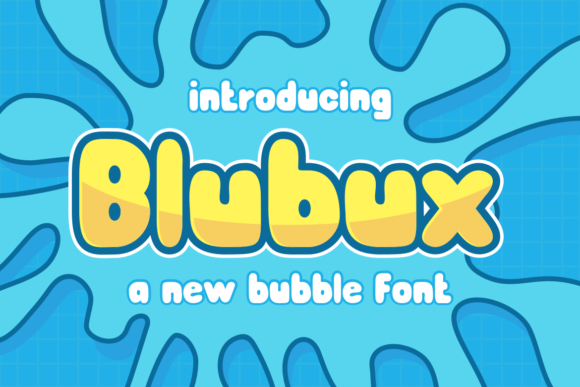
The Blubux Font: A Playful and Friendly Choice for Your Designs
I still remember the time I was working on a project for a children’s book, and I was struggling to find the perfect font. The client wanted something that would appeal to kids, but also convey a sense of friendliness and approachability. After hours of searching, I stumbled upon the Blubux font, and it was love at first sight! ✨
This font has round and wide letter shapes with curved corners, giving a soft and friendly impression. Because of this, this font is often chosen for designs aimed at children or those with a playful nature, as it conveys a more youthful and cheerful feel.
An Honest Review of Blubux Font
What I Love About Blubux Font
- ✨ The playful and friendly vibe it gives off, perfect for designs aimed at kids or those with a playful nature
- ✅ The rounded edges and curved corners make it easy to read and fun to look at
- 💡 It’s surprisingly versatile and can be used for a variety of design projects, from posters to social media graphics
While Blubux font is an excellent choice for many design projects, there are a few quirks to be aware of: 🤔
- ⚠️ It may not be the best choice for very formal or professional designs, as it can come across as too playful
- ⚠️ Some of the letters may appear a bit too condensed, which can make them difficult to read at very small sizes
Blubux font comes with a range of OpenType features and glyphs that can enhance your designs. Here are a few examples:
- Stylistic alternates: Blubux font offers stylistic alternates that can give your text a more playful or decorative look
- Glyphs: The font includes a range of glyphs, including ligatures, ornaments, and swashes
The Design Story Behind Blubux Font
Blubux font was designed with the goal of creating a playful and friendly font that would appeal to designers and non-designers alike. The designer wanted to create a font that would convey a sense of youthfulness and cheerfulness, while also being easy to read and versatile enough for a variety of design projects.
Q: What is Blubux font best used for?
Blubux font is best used for designs that require a playful and friendly vibe, such as children’s books, posters, social media graphics, and more.